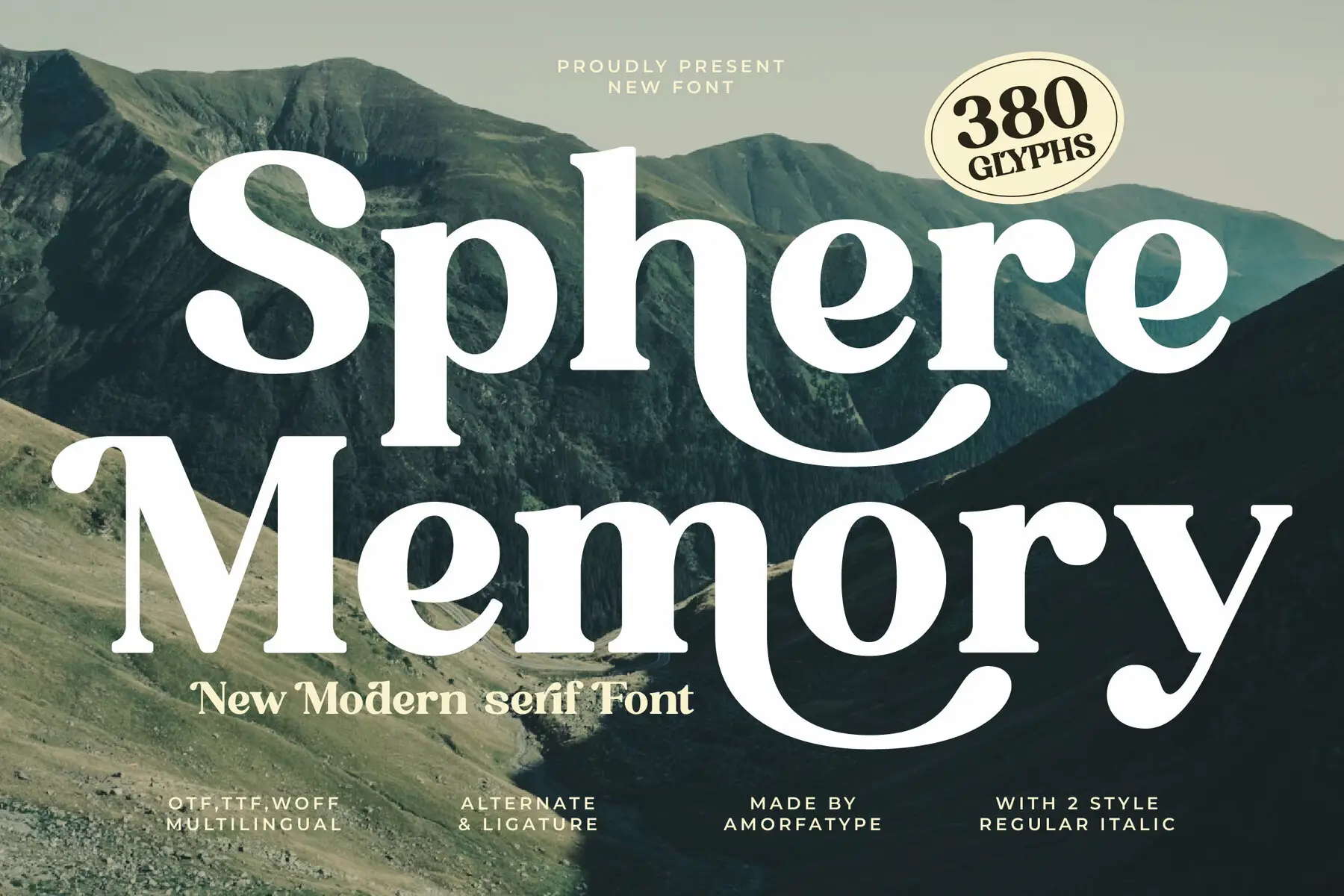
Sphere Memory Font
Sphere Memory, crafted by Amorfa Type, stands as a bold and elegant serif font that gracefully merges timeless charm with a modern twist. With its high contrast strokes, refined curves, and distinctive letterforms, this typeface lends a sophisticated yet creative touch to your typography projects. Perfect for branding, editorial layouts, fashion themes, packaging, and striking headlines, Sphere Memory exudes confidence and character with every letter. This font is thoughtfully designed to balance readability with artistic flair, making it a versatile choice for both print and digital applications. Whether crafting a stylish logo, magazine title, or eye-catching product design, Sphere Memory enhances your work with its refined and unforgettable aesthetic.Sphere Memory: Modern Serif Font